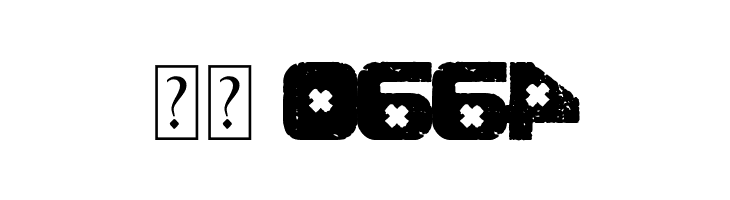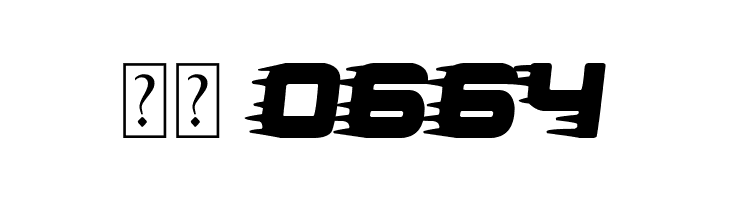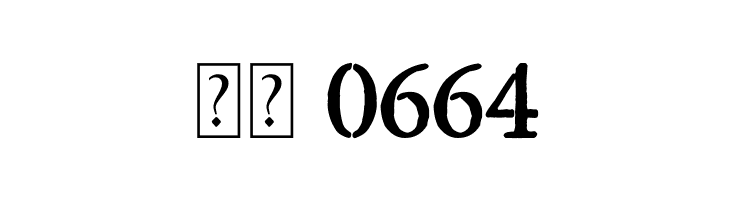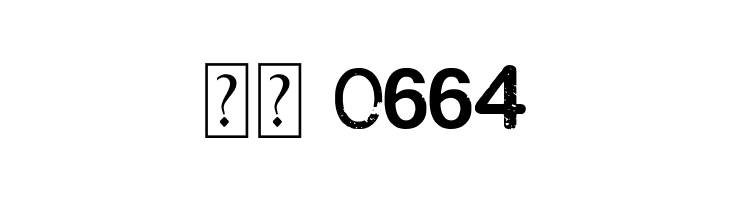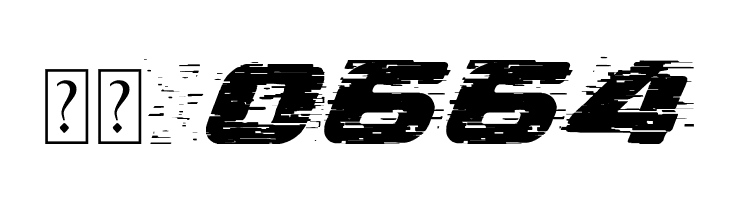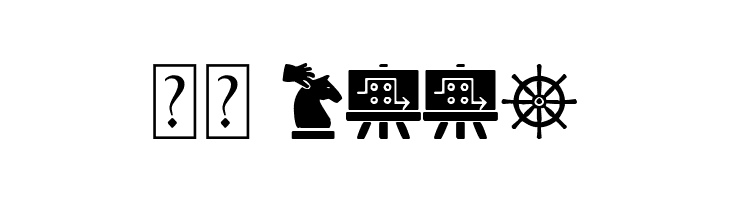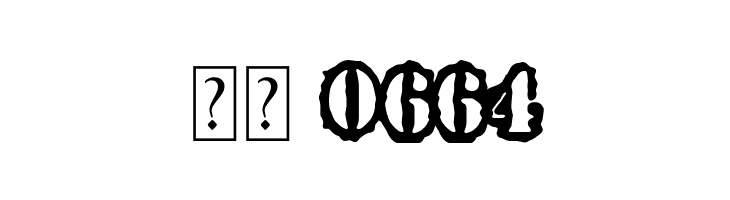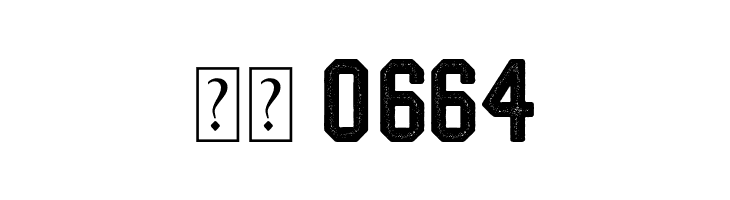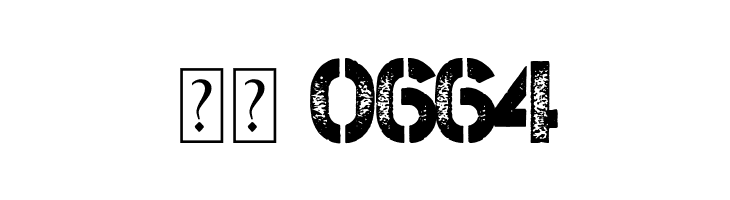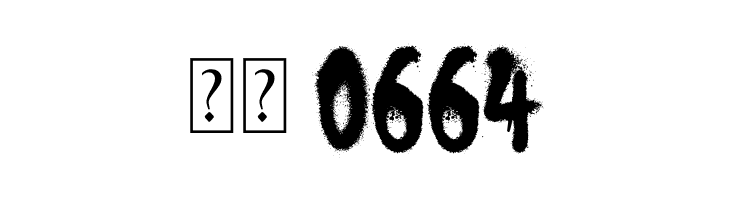
• Special Forces
Bold, icon-based font with military and tactical imagery.
• Special Speed Agent
A bold, italicized font with a glitch-like, high-energy design.
• SPECIAL UNIT
A bold, decorative font with a textured, engraved appearance.
• Spectrum
A monospaced, pixel-style font ideal for retro computing themes.
• Spectrum
A bold, monospaced font with a retro, pixelated style ideal for digital displays.
• Speed Grams
A bold, italicized font with a dynamic, speed-inspired design.
• Speedy Retro
Bold, retro display font with horizontal line shading and condensed, geometric forms.
• Split Letras
A bold, distressed font with a unique horizontal split effect, perfect for vintage and industrial designs.
• Sports Bar
A bold, distressed font with a vintage, rugged appearance.
• Sports Magazine
A bold, playful font with a hand-drawn, textured style.
• Spray Army Division
A bold, stencil-style font with a rugged, distressed texture.
• Spray Letters
A bold, graffiti-style font with a spray-painted texture.
• Spray Typo Gang
Graffiti-style, bold display font with dripping paint effects.
• Sprinkled
A bold, geometric font with a unique textured pattern, ideal for modern designs.
• Square Thief
A bold, brush-stroke style font with a rough, textured appearance.
• Stamp Empire
A bold, distressed font with a rugged, vintage appearance.
• Stamp Punk Company
A bold, distressed font with a vintage, industrial feel.
• Stamp Revolution
A bold, distressed font with a vintage, grunge aesthetic.
• Star Wuarras
A bold, sci-fi themed font with a distressed, rugged appearance.
• Startup Icons
Bold, modern icons for business and startup themes.
• Steel Armor
A bold, gothic-inspired display font with sharp, armored edges.